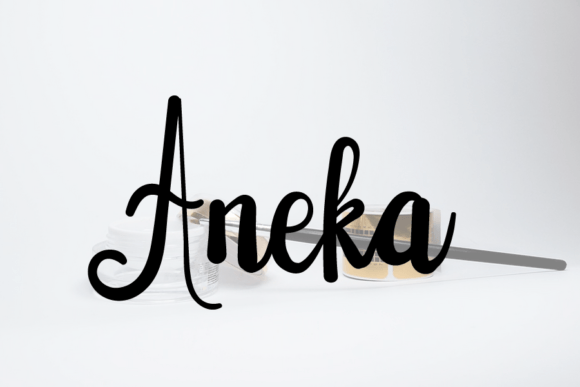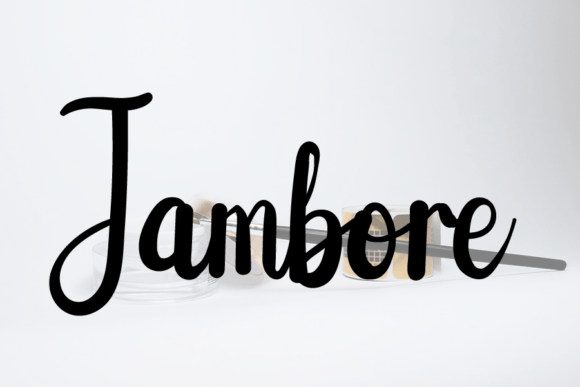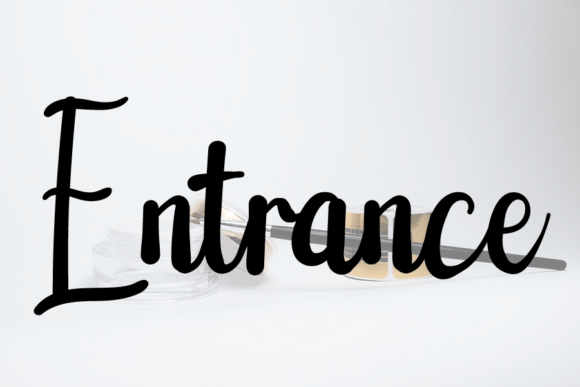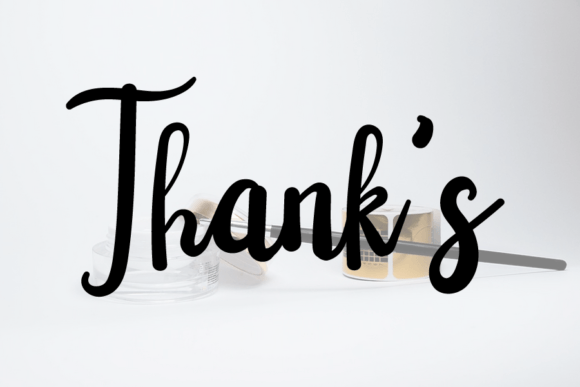
Before Font
About Before Font
“Before” is a neat and beautiful handwritten font that exudes an elegant touch, making it perfect for a variety of creative projects. Its distinct and timeless style adds a touch of sophistication, allowing you to create spectacular designs that capture attention.
The neat and beautiful qualities of Before make it suitable for a range of applications. Whether you’re working on branding, invitations, packaging, or any other design project, this font brings an elegant and refined aesthetic to your work.
Fall in love with the distinct and timeless style of Before as it becomes a valuable asset in your design toolkit. Use it confidently to enhance your favorite projects and witness how it adds a touch of sophistication to your creations. With its neat and beautiful handwritten characteristics, Before is poised to elevate your designs and make a lasting impression.